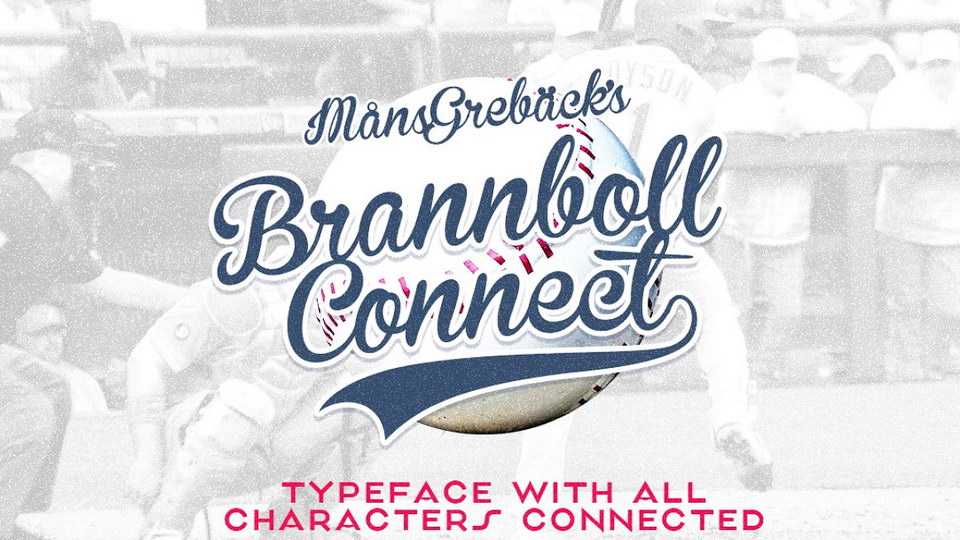
Download Brannboll Connect font, a script sport typeface inspired by baseball-style lettering. Each character of Brannboll Connect and all their parts are physically connected, making it a lettering perfect for laser cutting, signs, jewelry, woodworking and embroidery.
Designer: Måns Grebäck